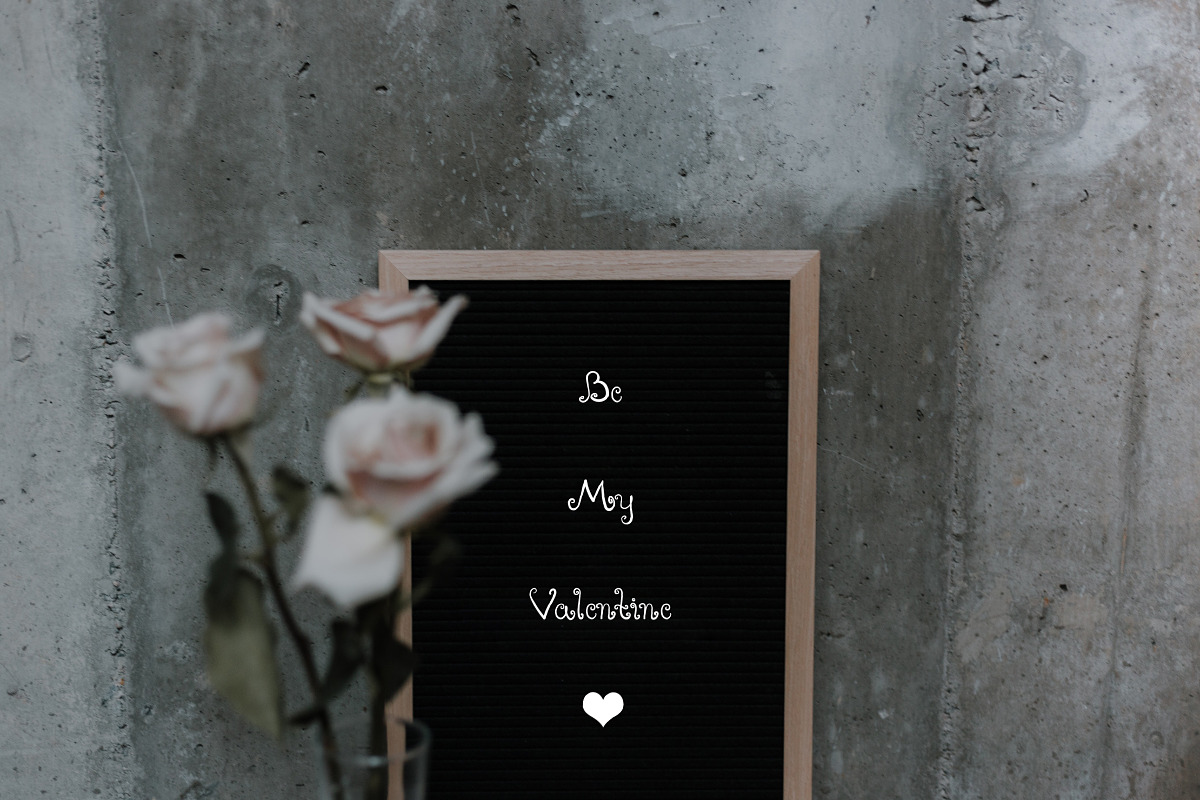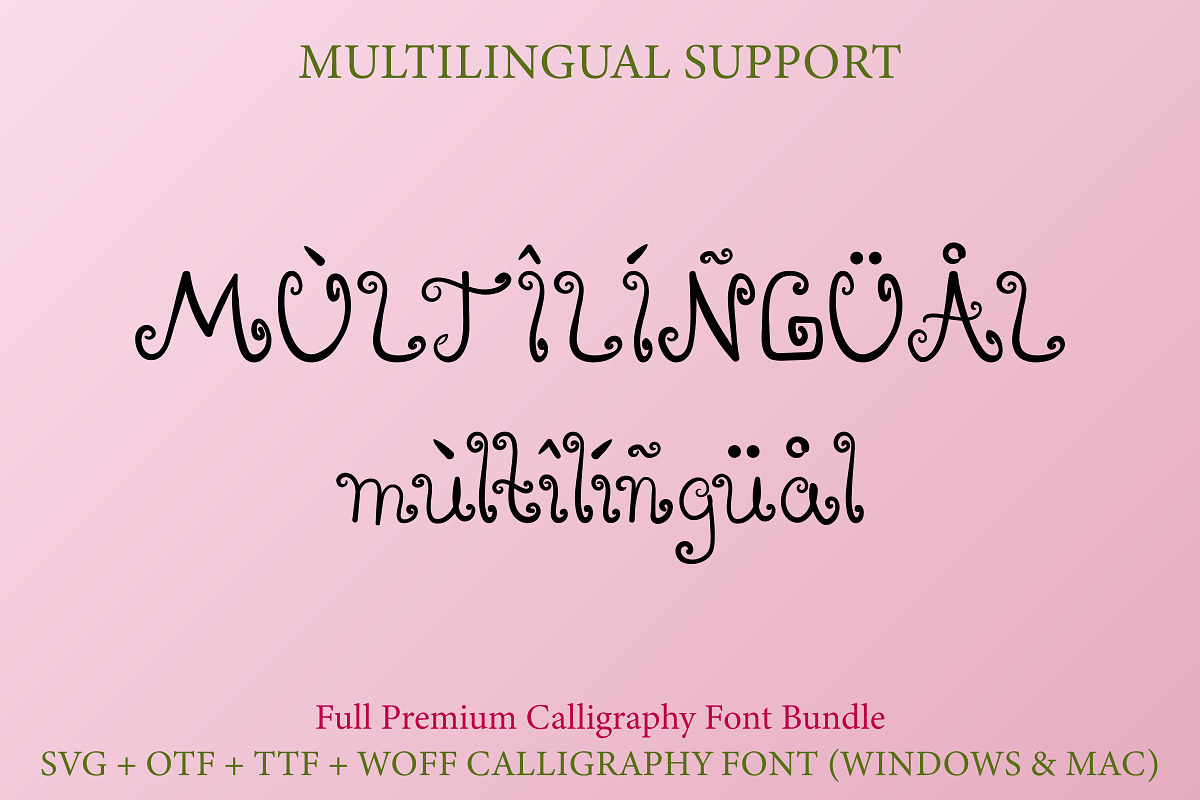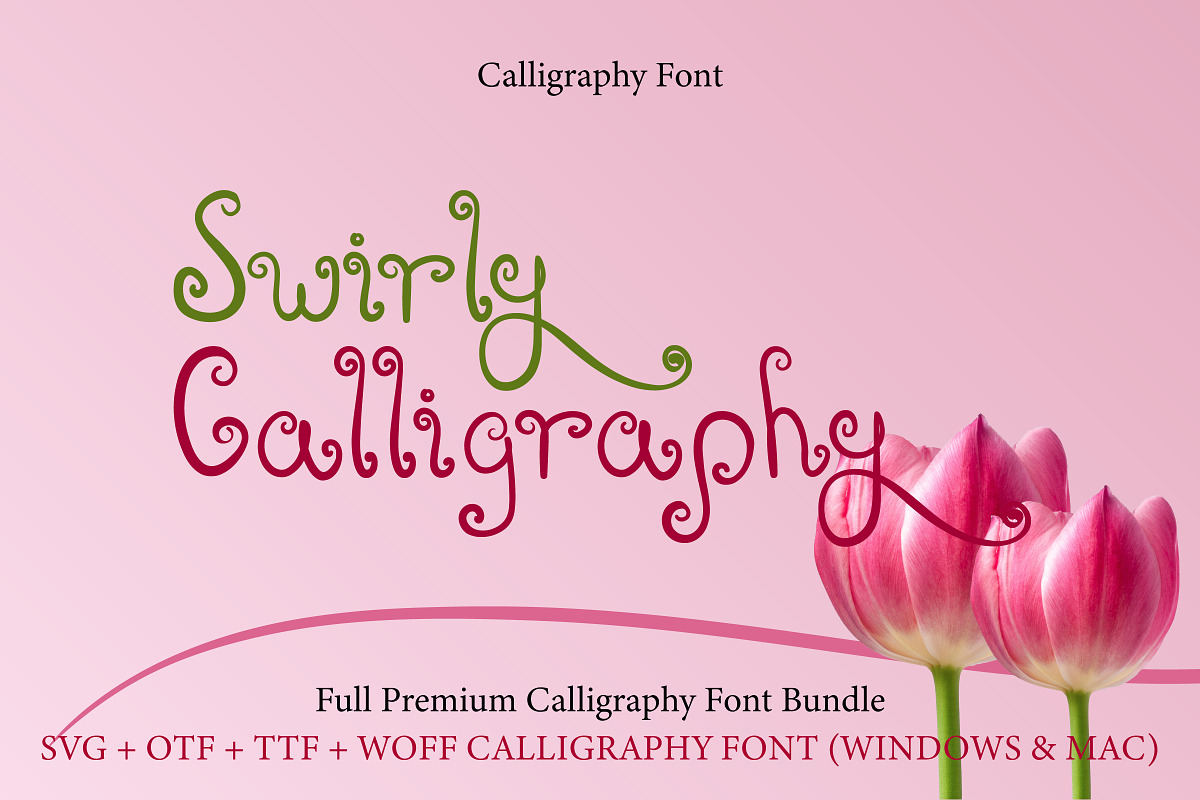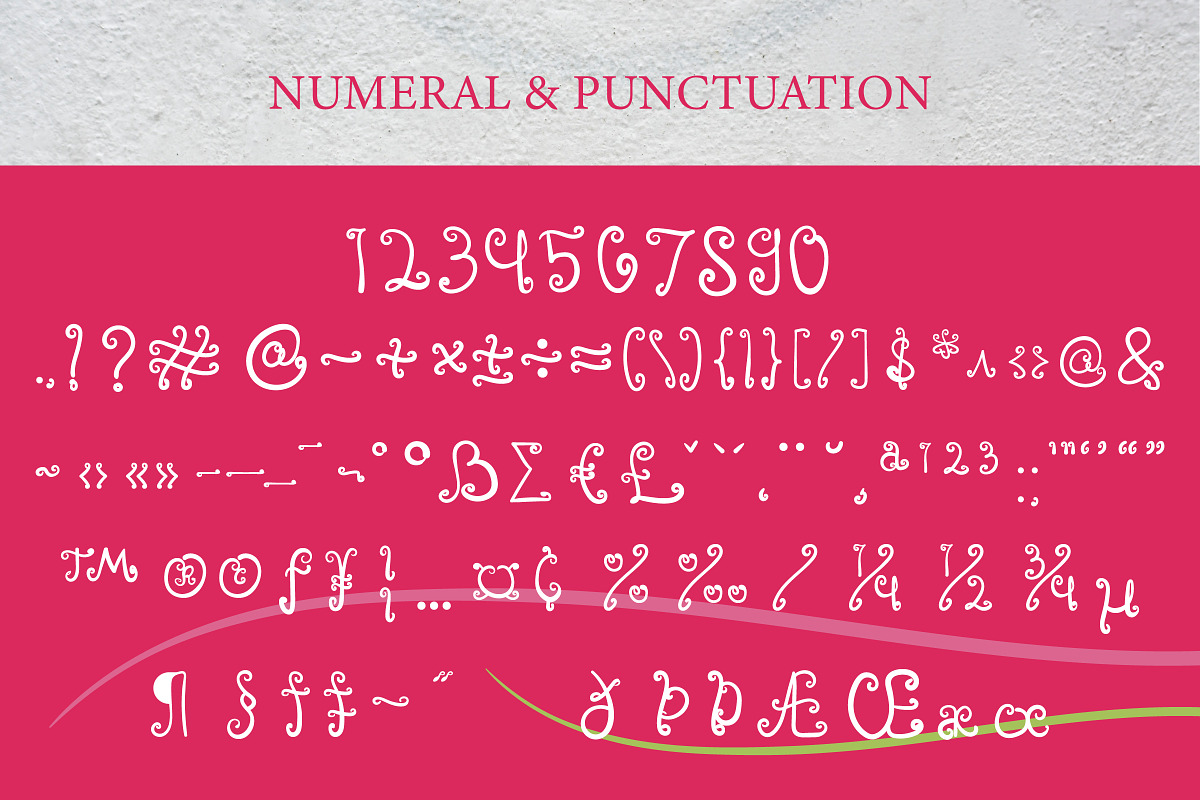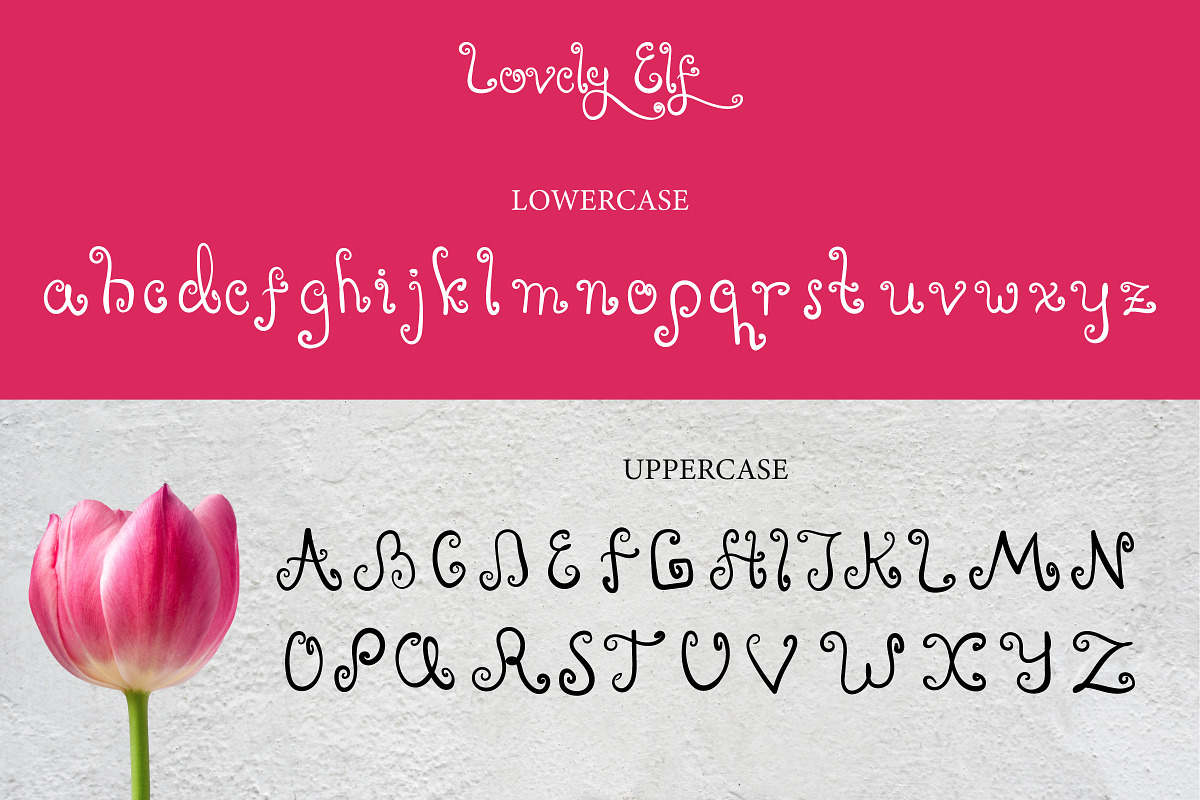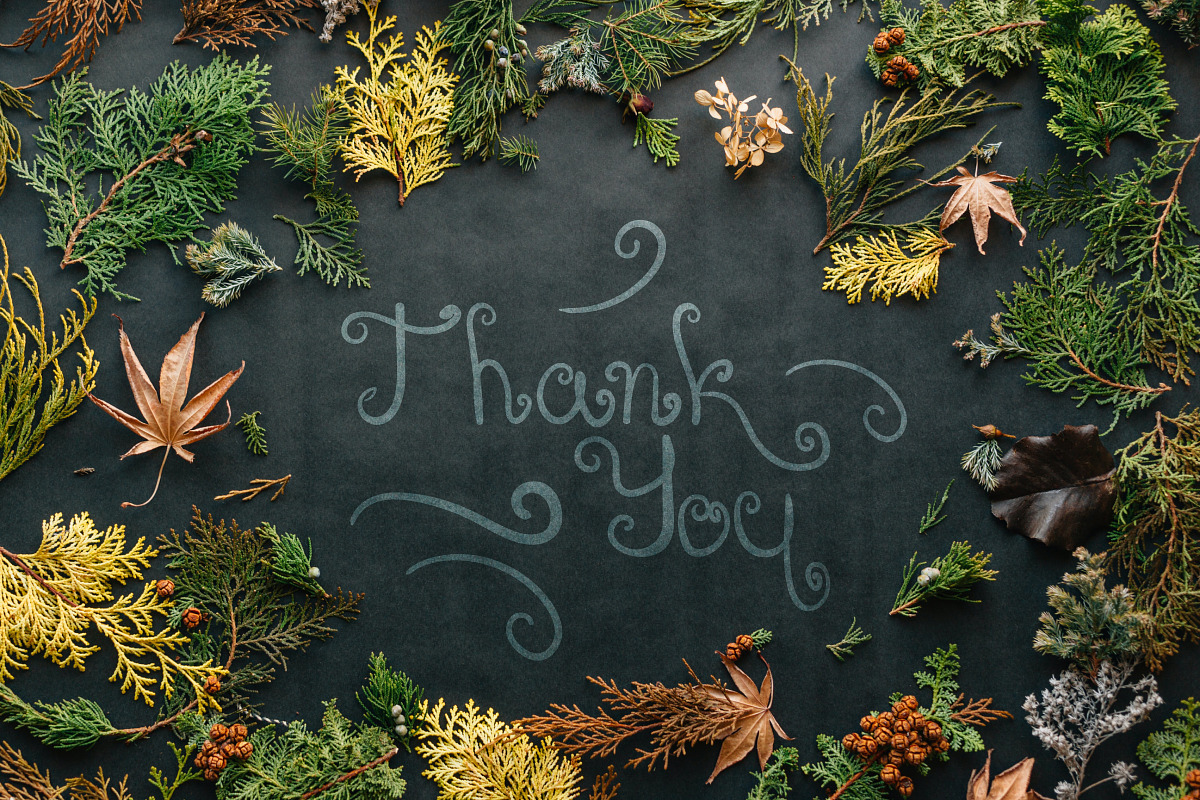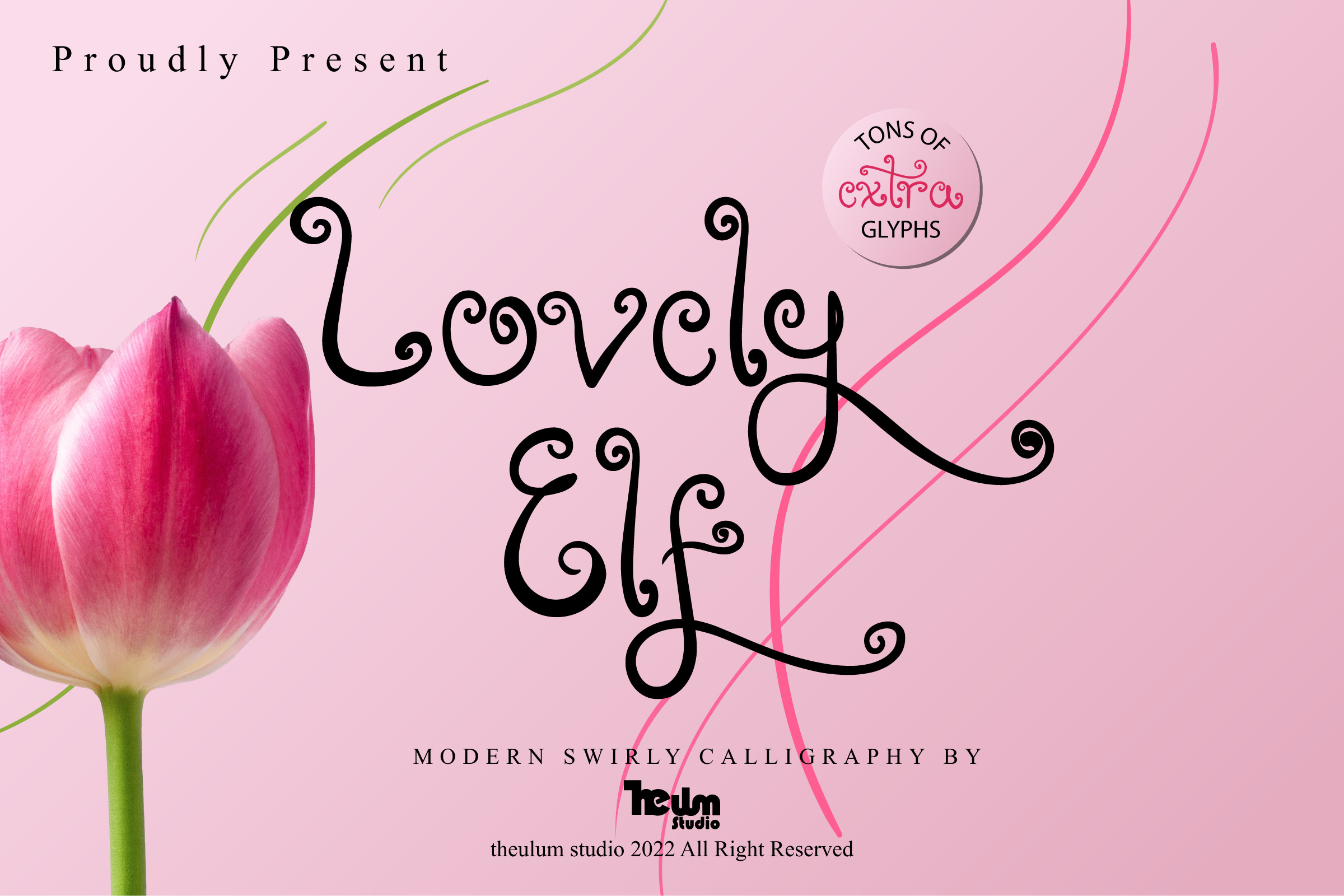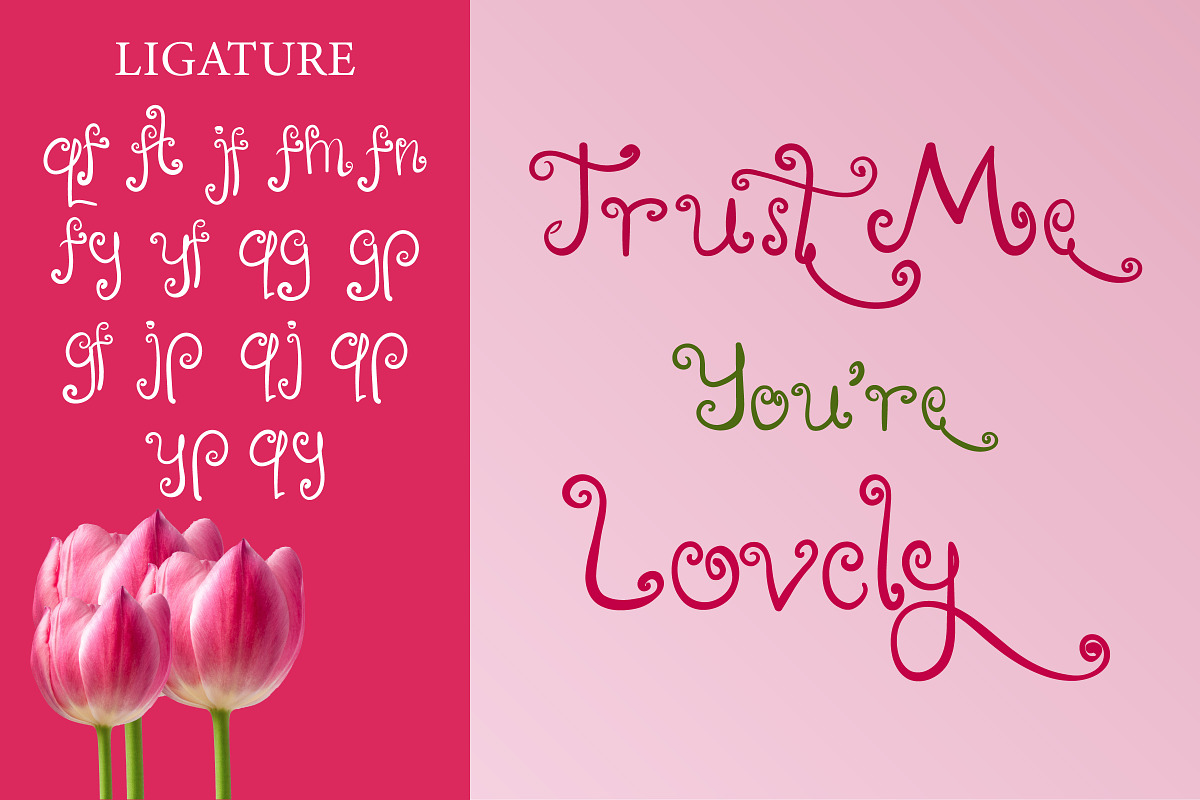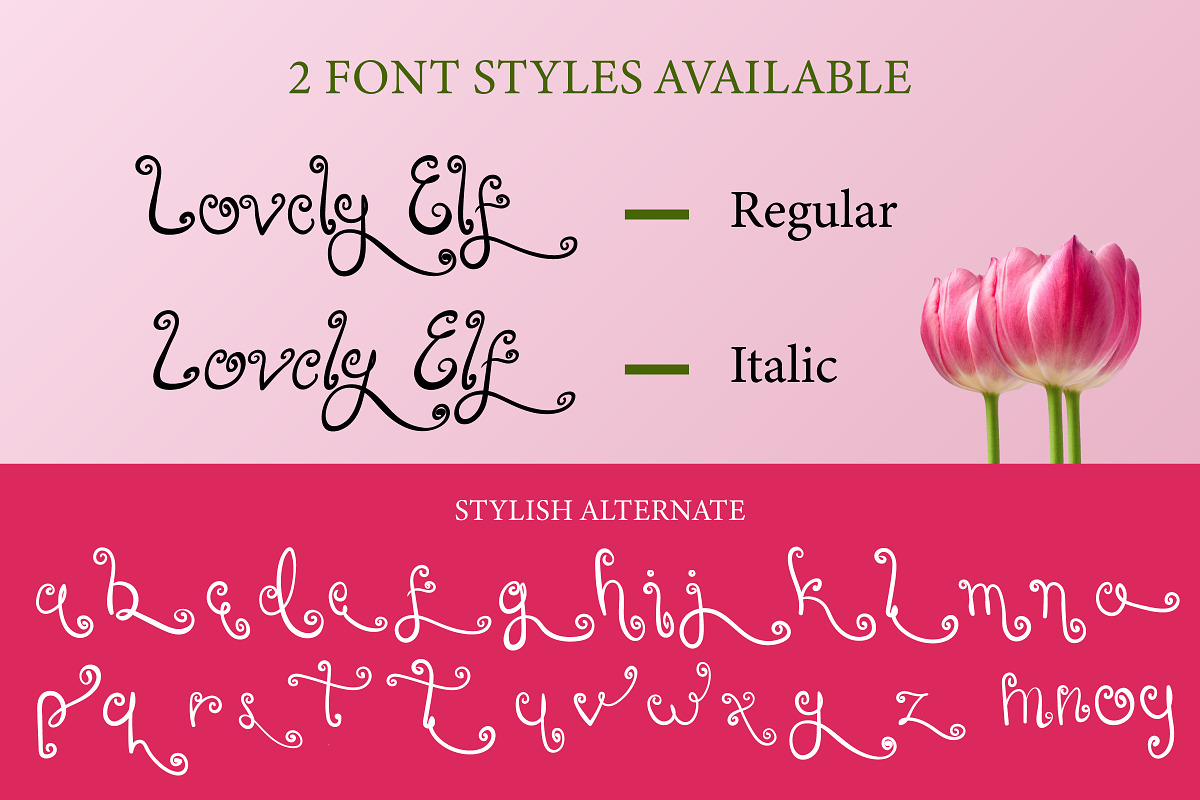
Lovely Elf - Swirly Font
Lovely Elf is modern and elegant swirly font. It has tons of extra glyphs with swirl accent, to add elegance and beauty of your design.
Lovely Elf is a perfect font for any projects, such as wedding invitation, christmas design, branding, logo, lettering, crafting, sticker, sublimation, and many more.
- PUA-Encoded swash/tail accent and love connection extra glyphs
- Stylish Alternate